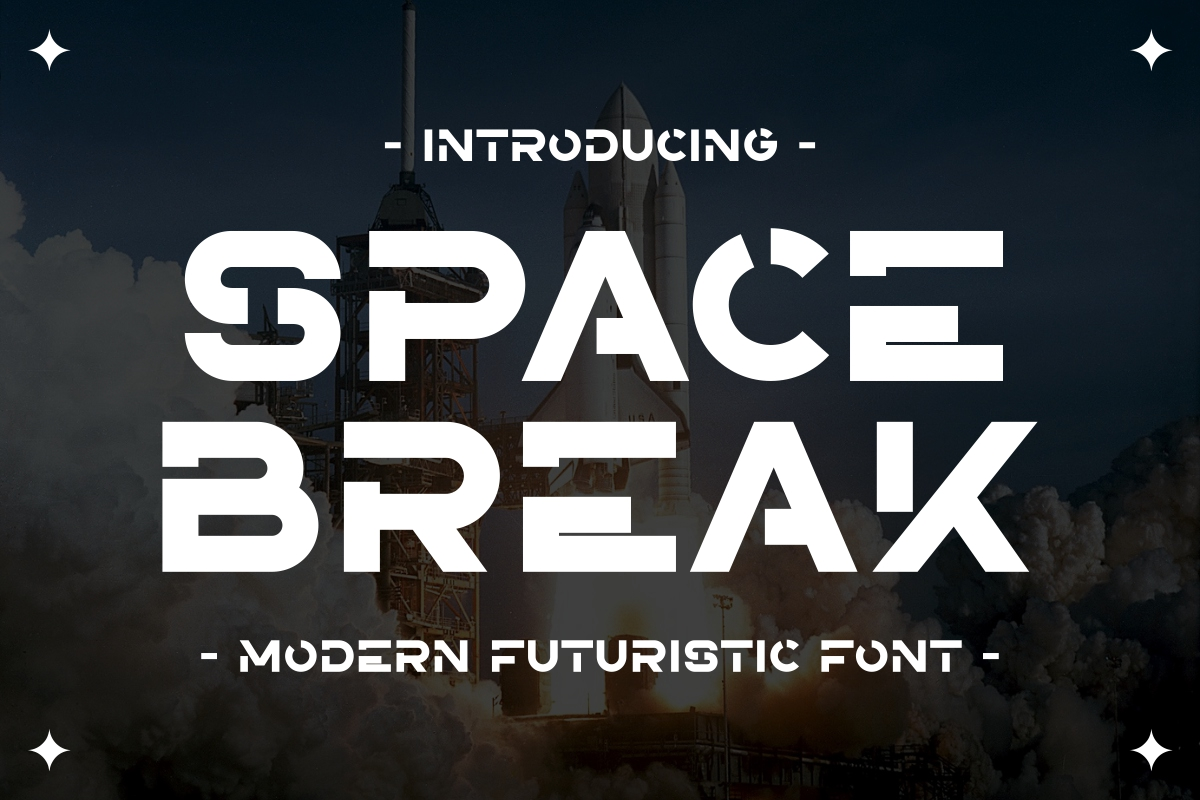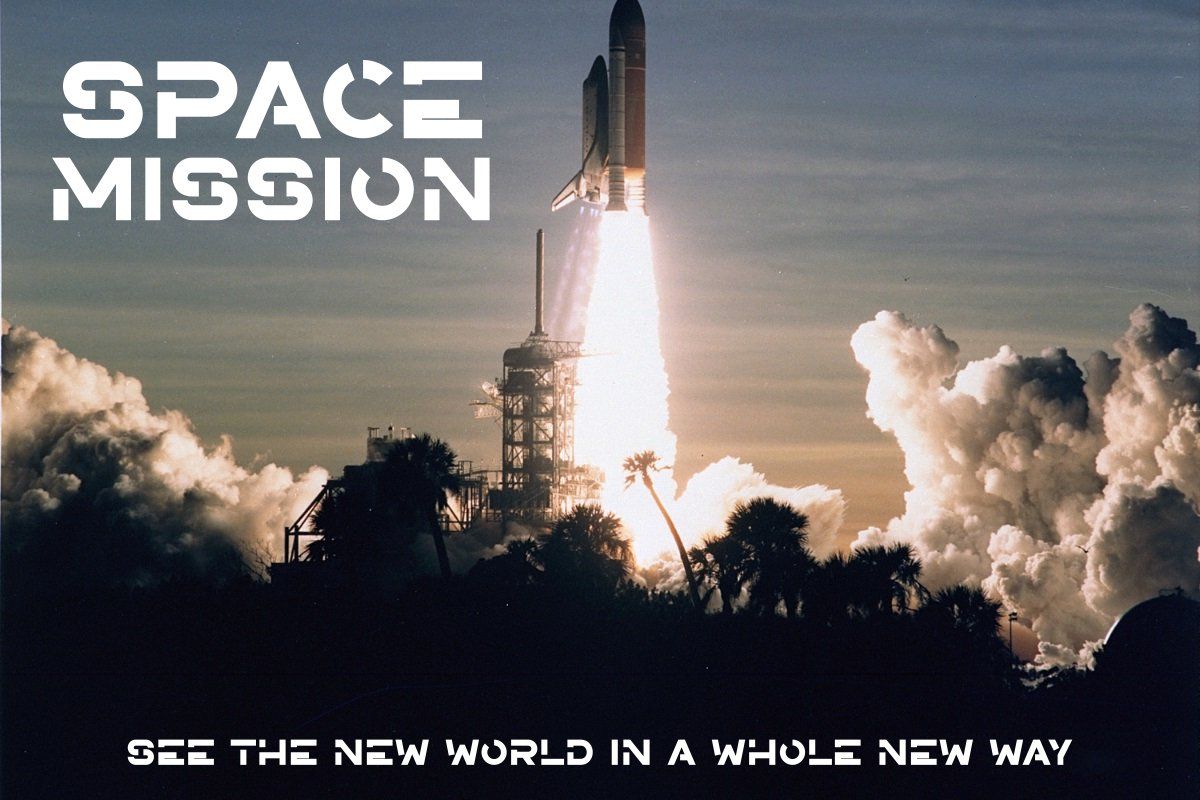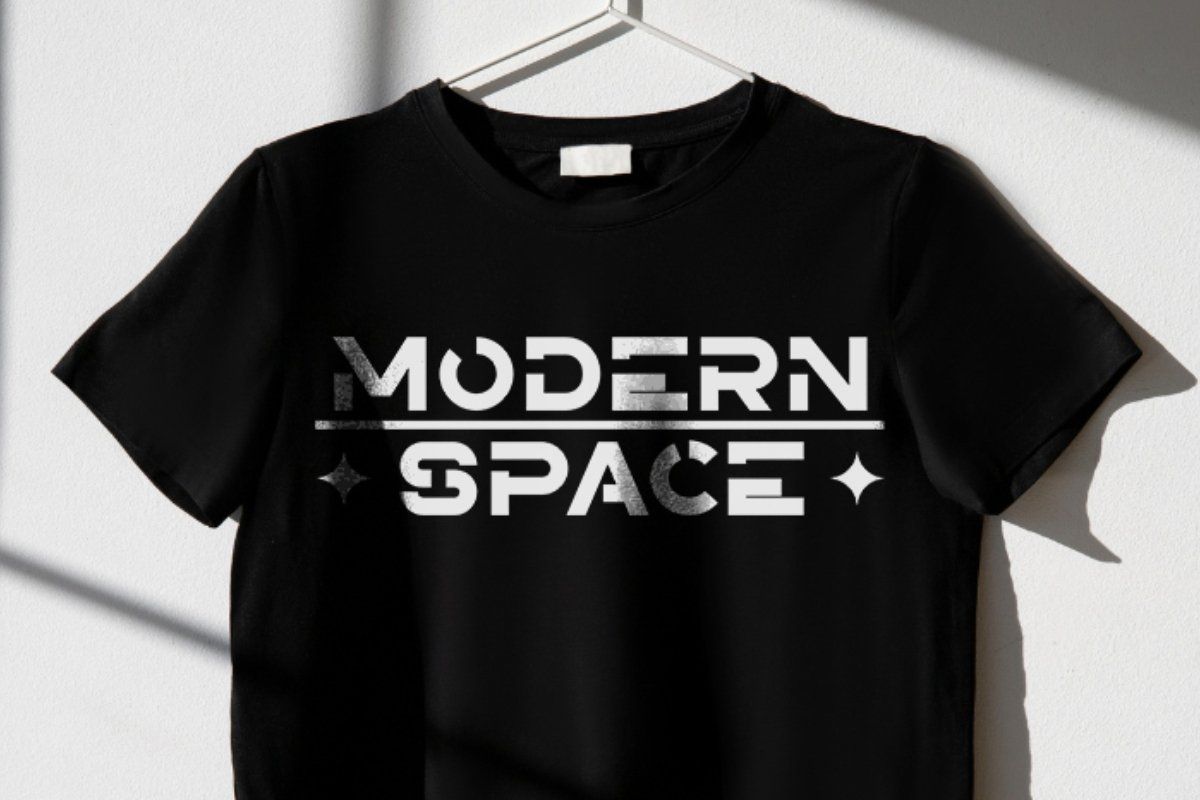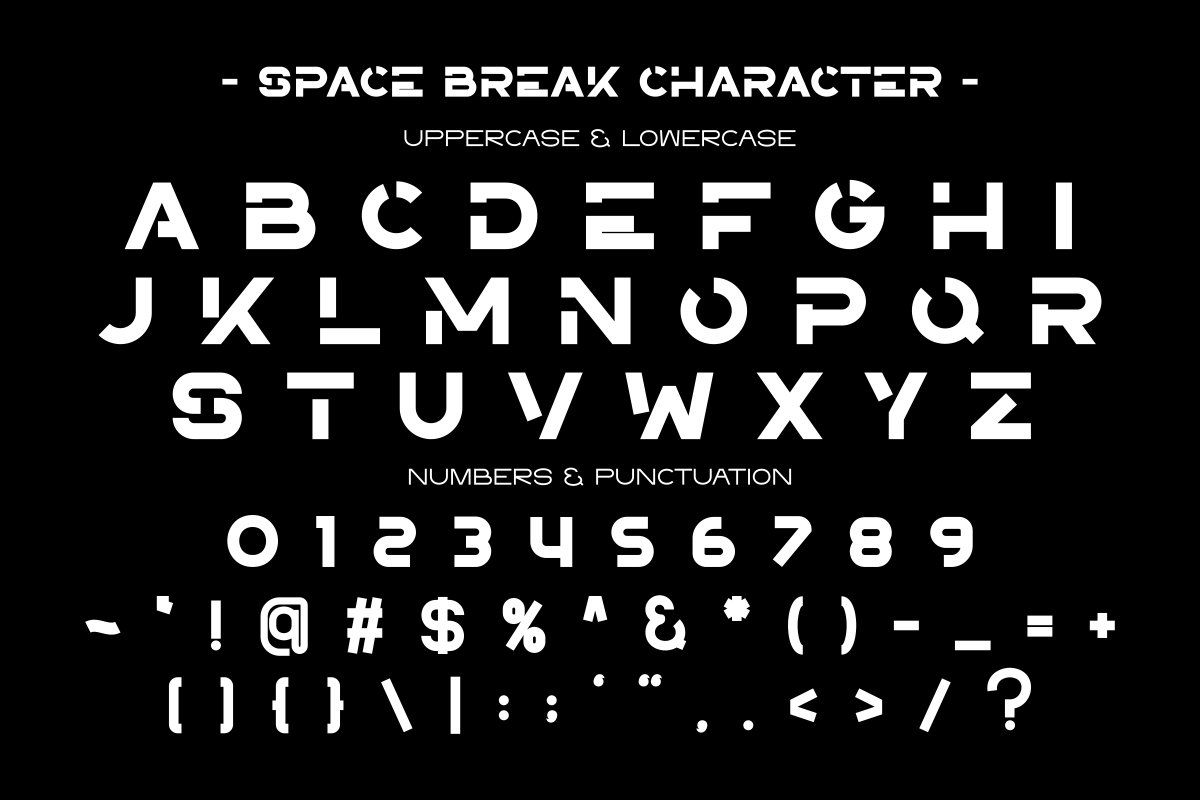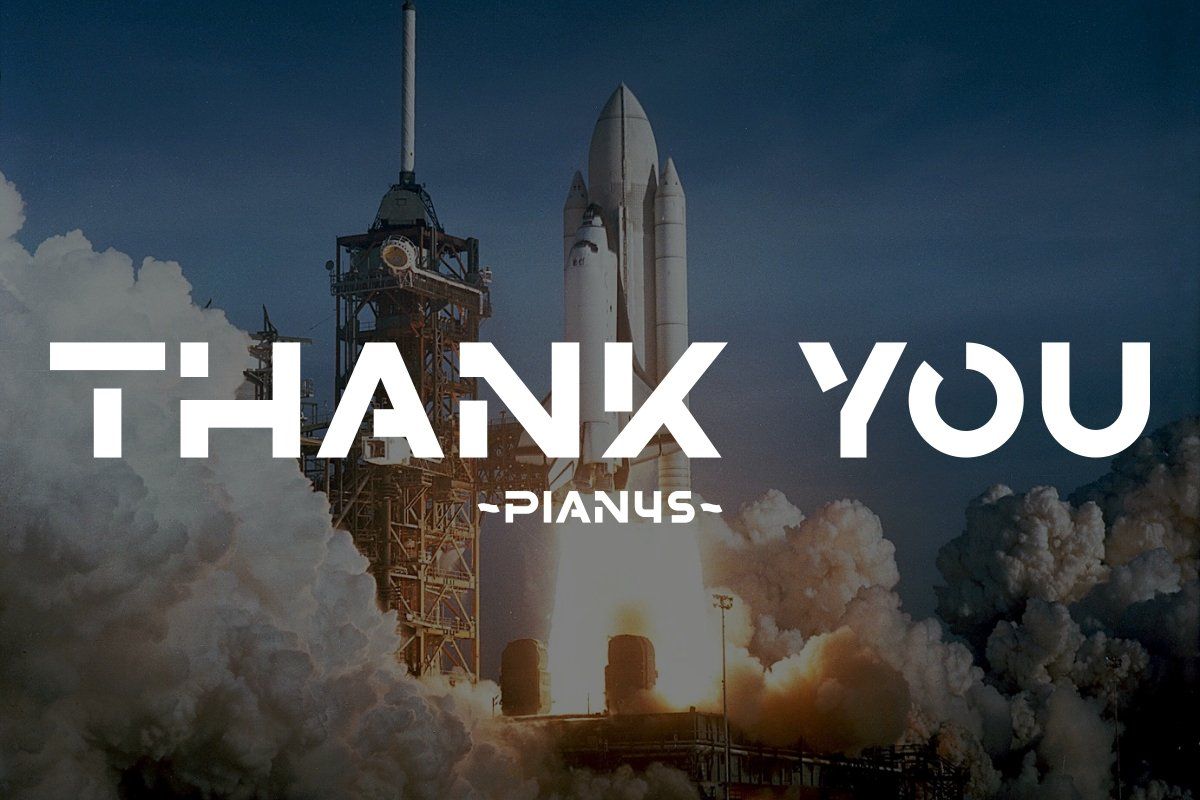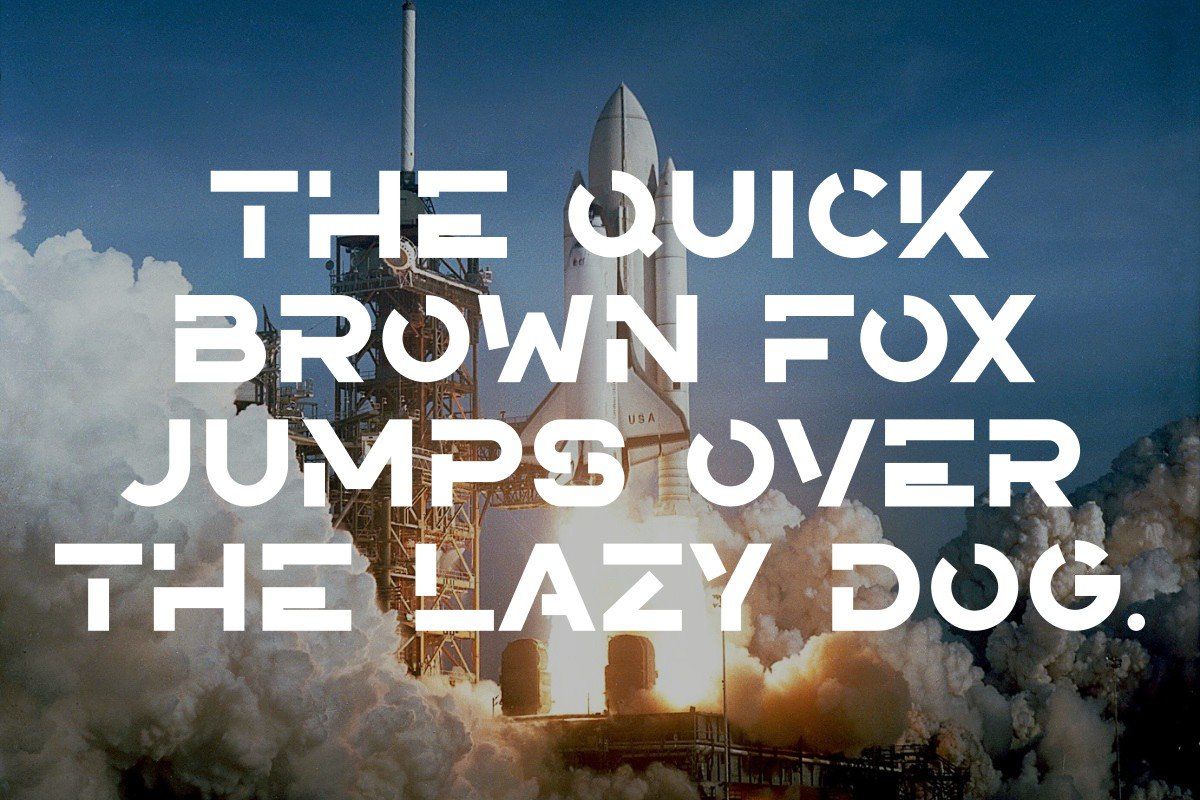
Introducing Space Break, a bold modern futuristic font designed to take your projects beyond the stars. With its sharp geometry, clean lines, and sci-fi inspired shapes, Space Break brings a sense of innovation and technology to your designs. Perfect for posters, logos, tech branding, space themes, digital products, and gaming interfaces. This display typeface stands out in both print and digital formats, making it ideal for modern designers, UI/UX projects, and futuristic headlines.